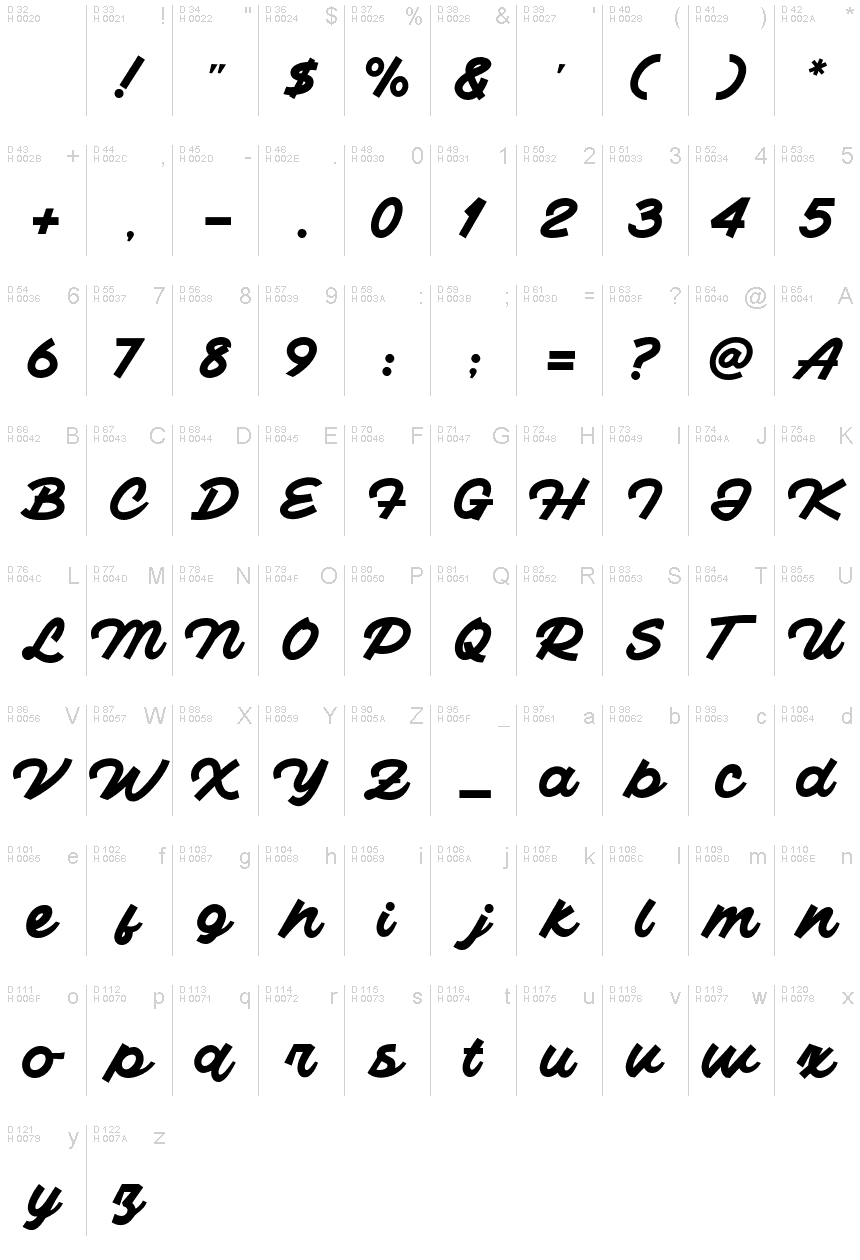
Zullia
Zullia is the perfect font for those who want to add a touch of elegance and sophistication to their projects. Designed by Khurasan, this lovely script font features bold weight that adds a strong statement to your designs. Its flowing lines and graceful curves make it suitable for a wide range of projects, from wedding invitations and greeting cards to logos and branding materials. Whether you're looking to create something romantic or professional, Zullia is the perfect choice. With its unique style and bold weight, this font is sure to leave a lasting impression on your audience.